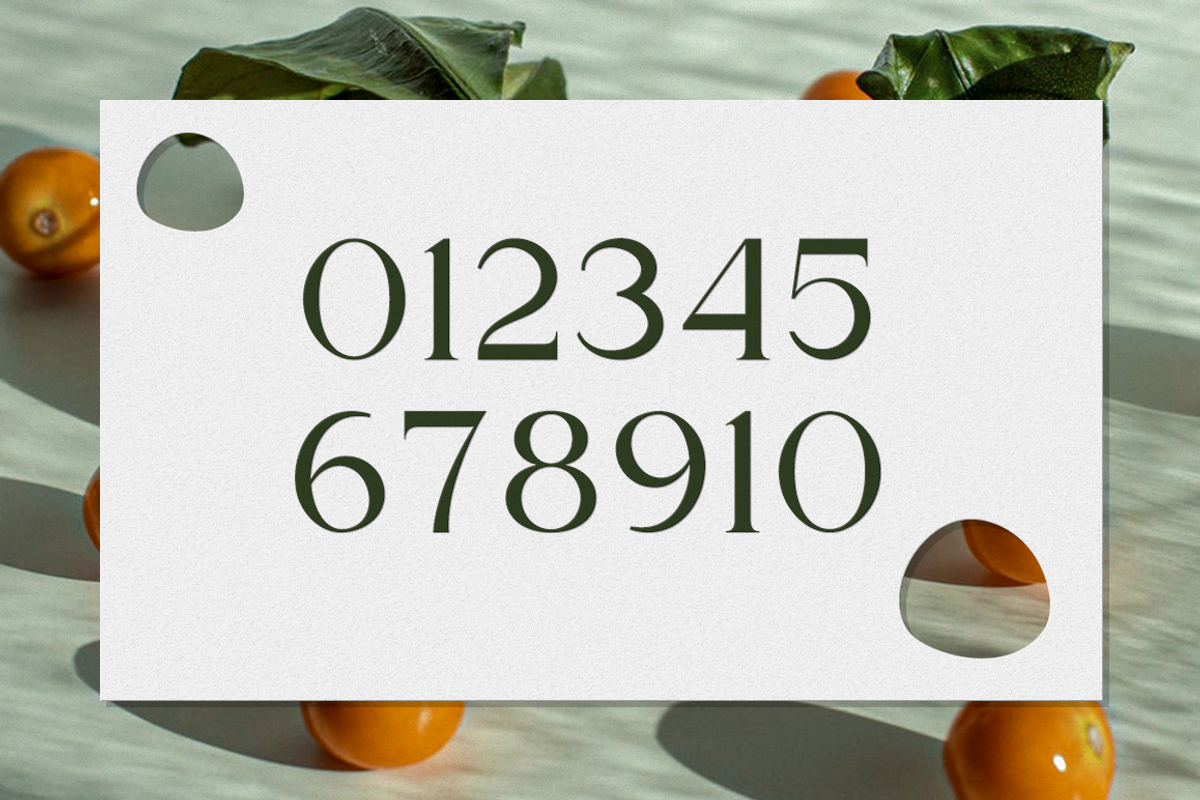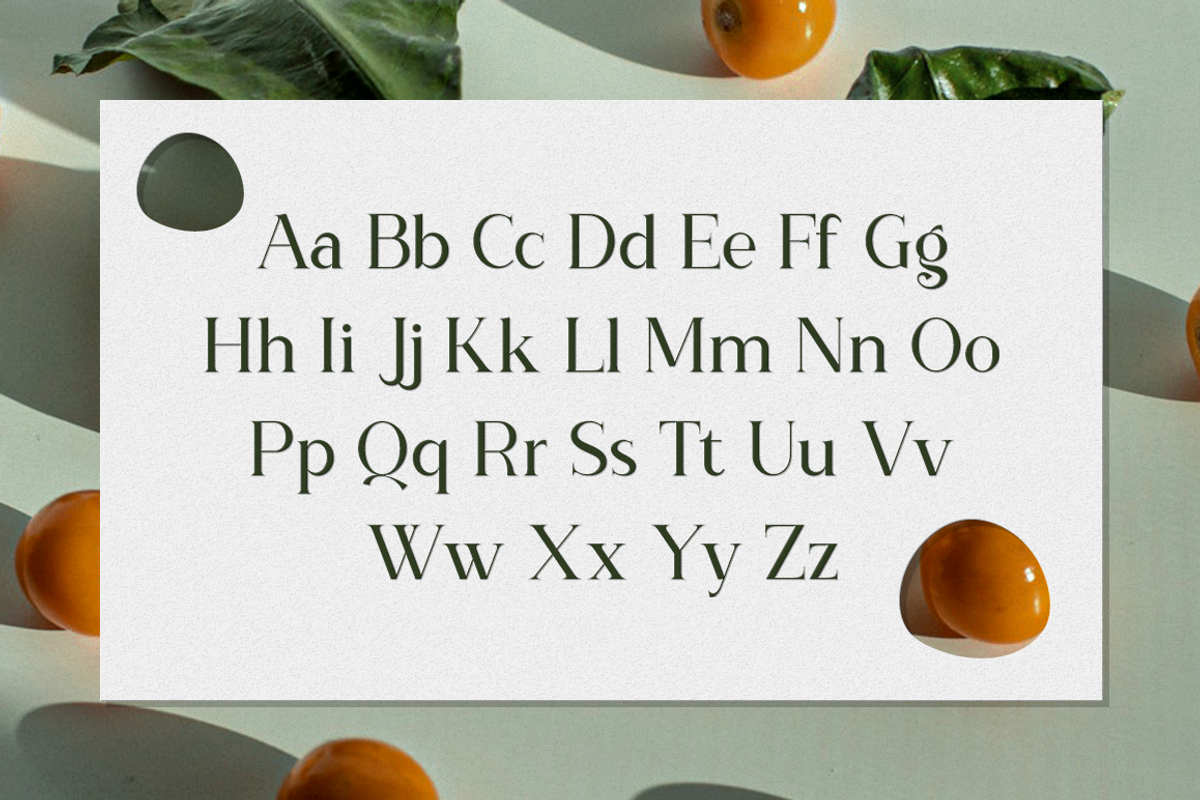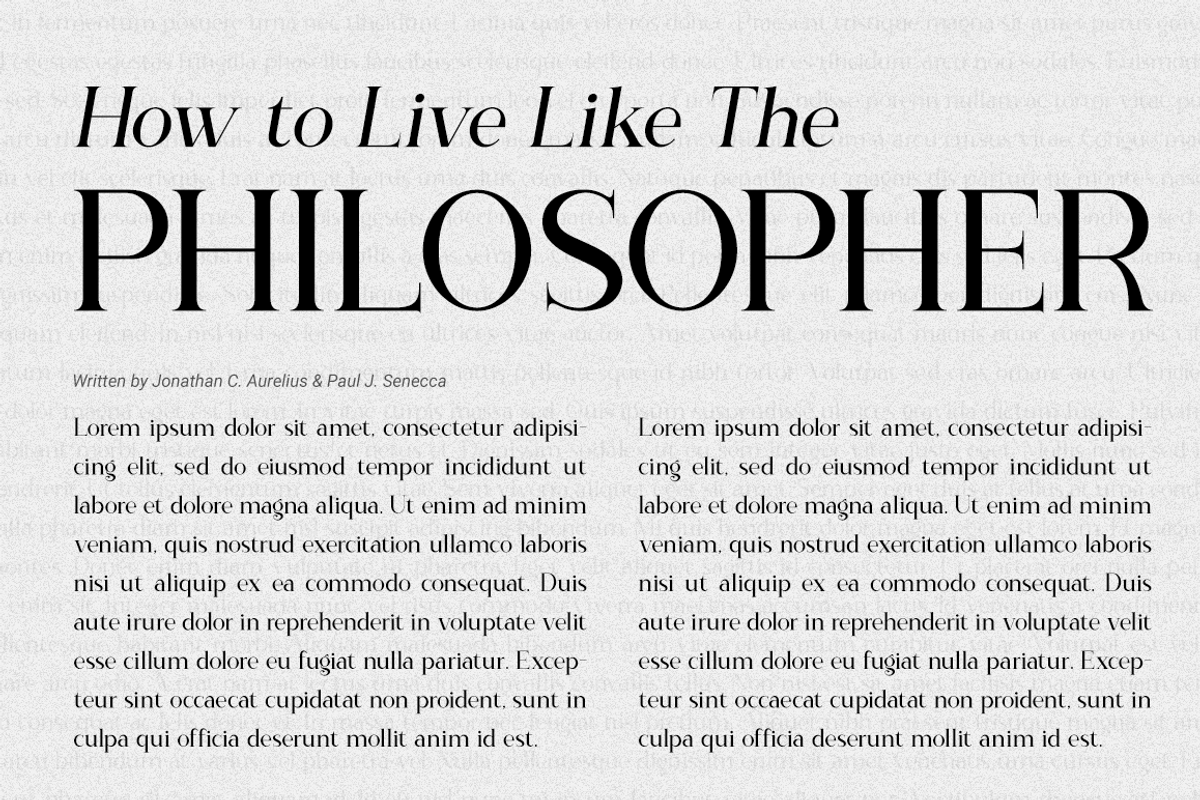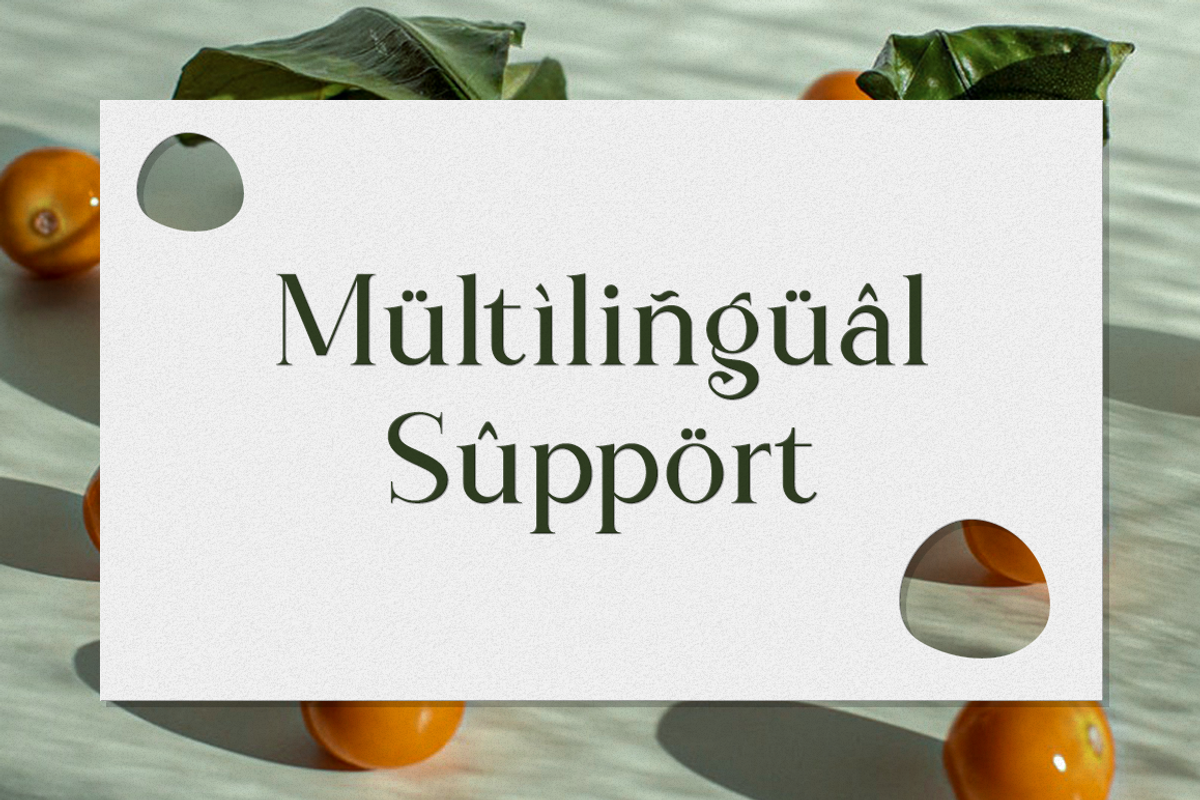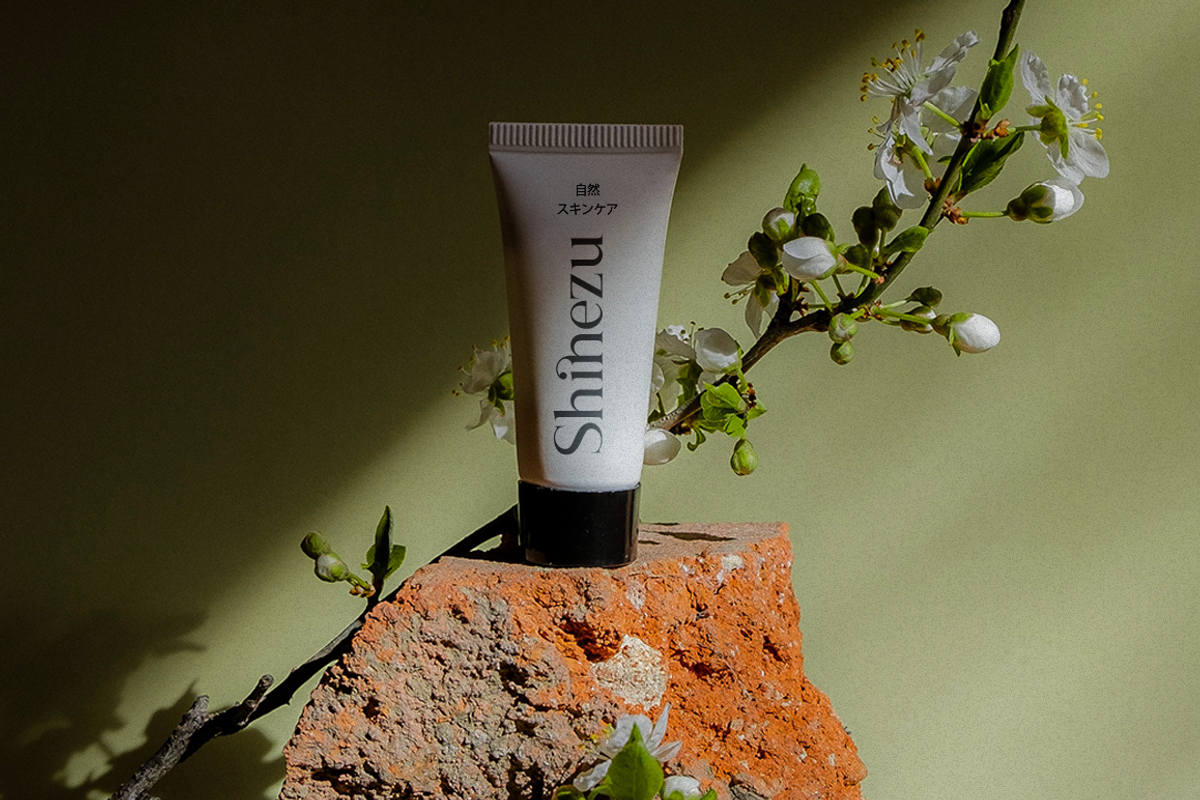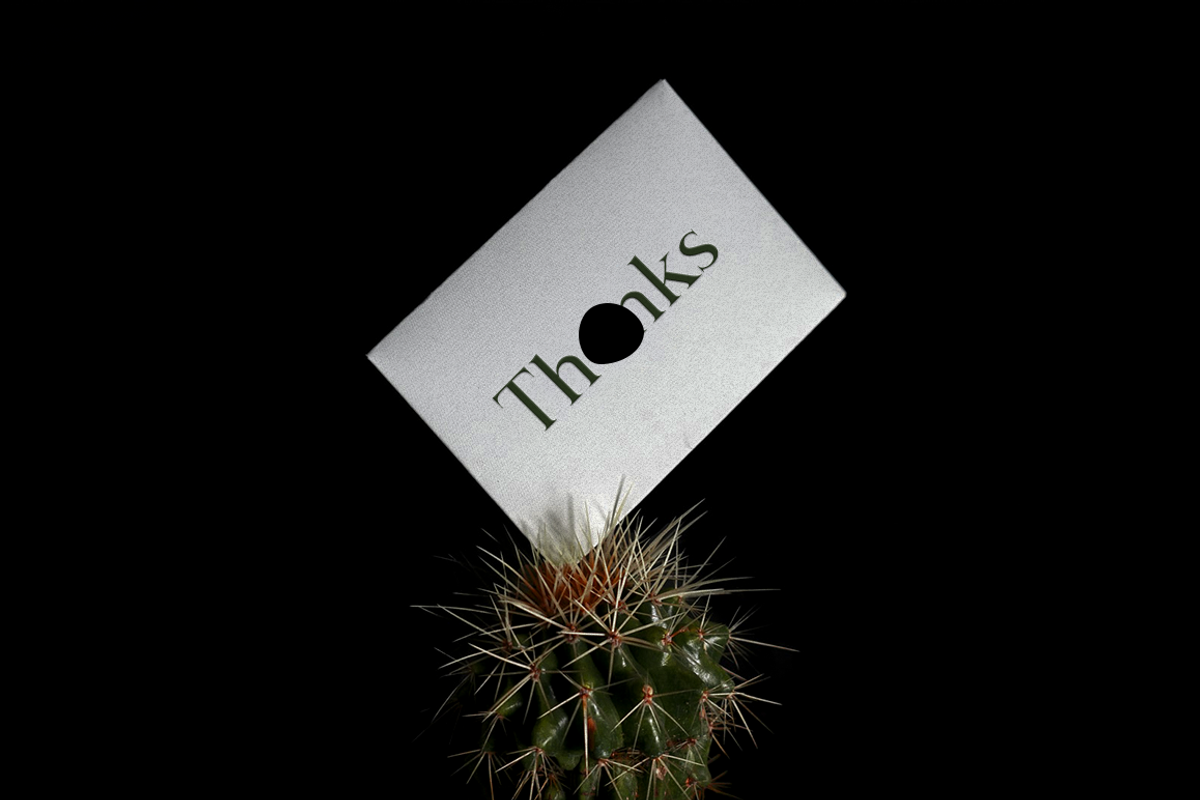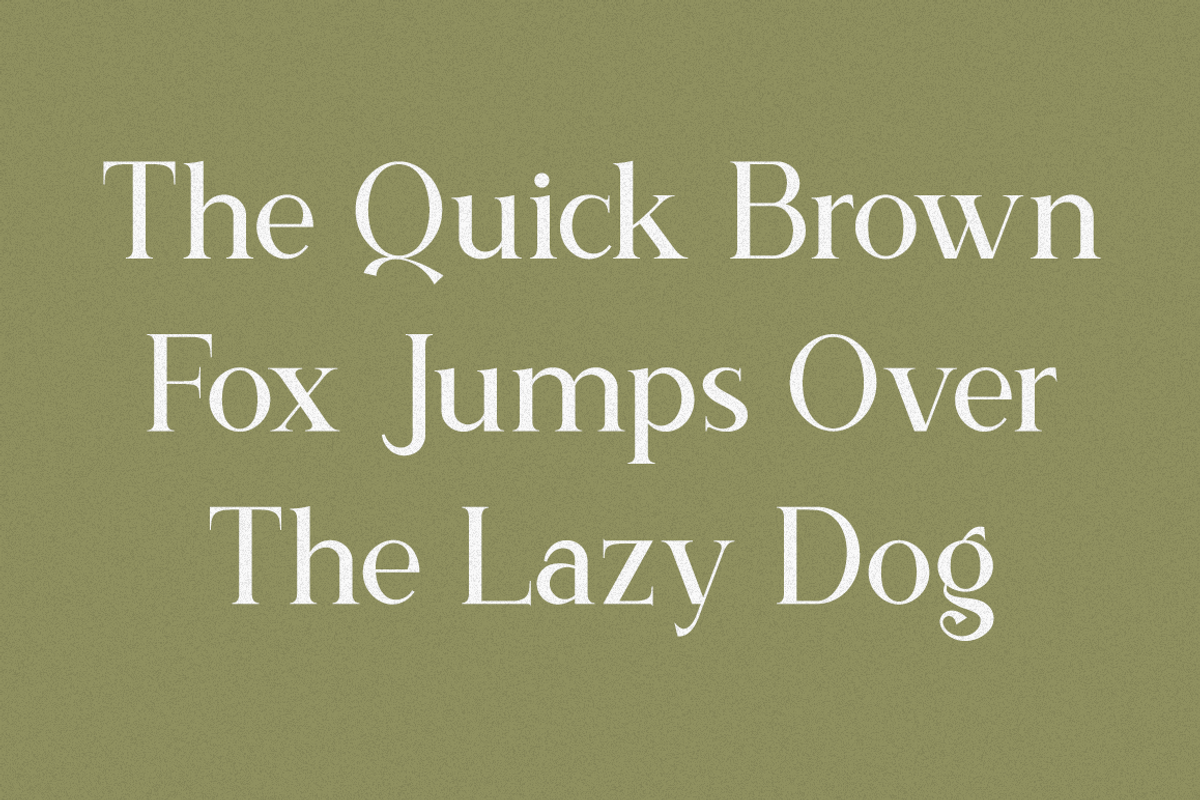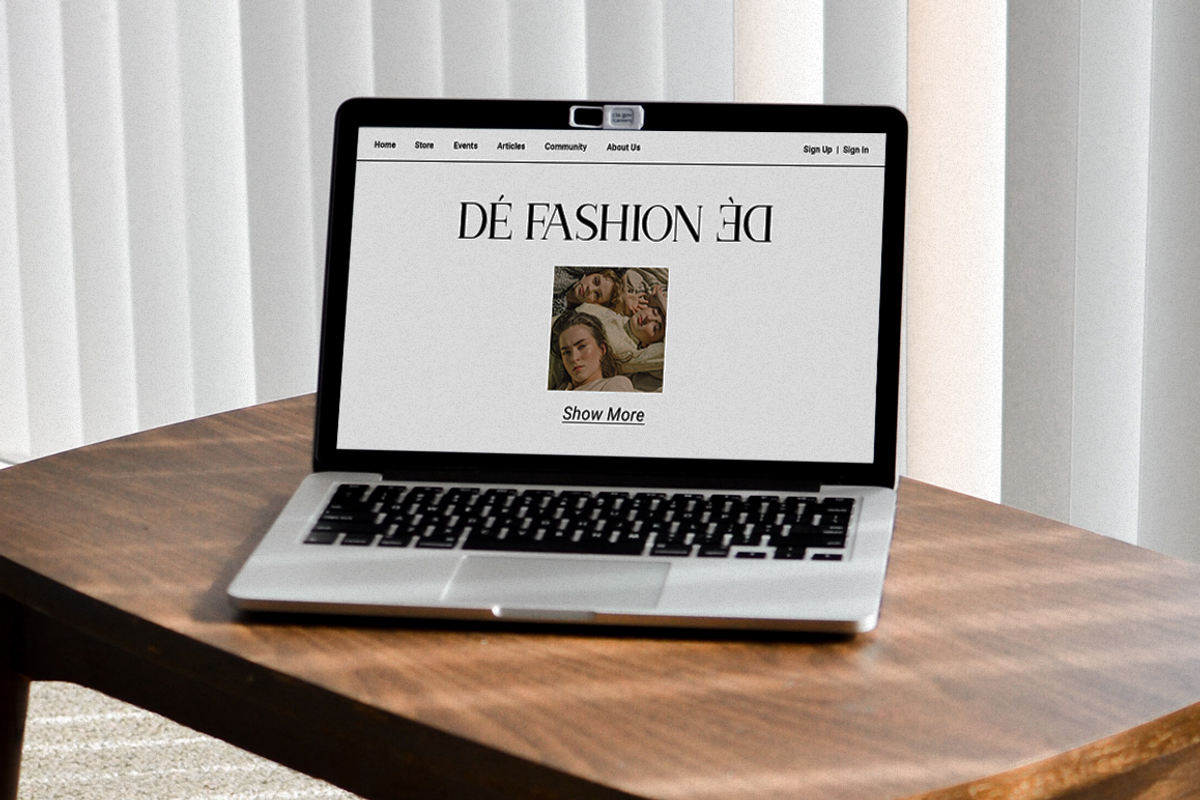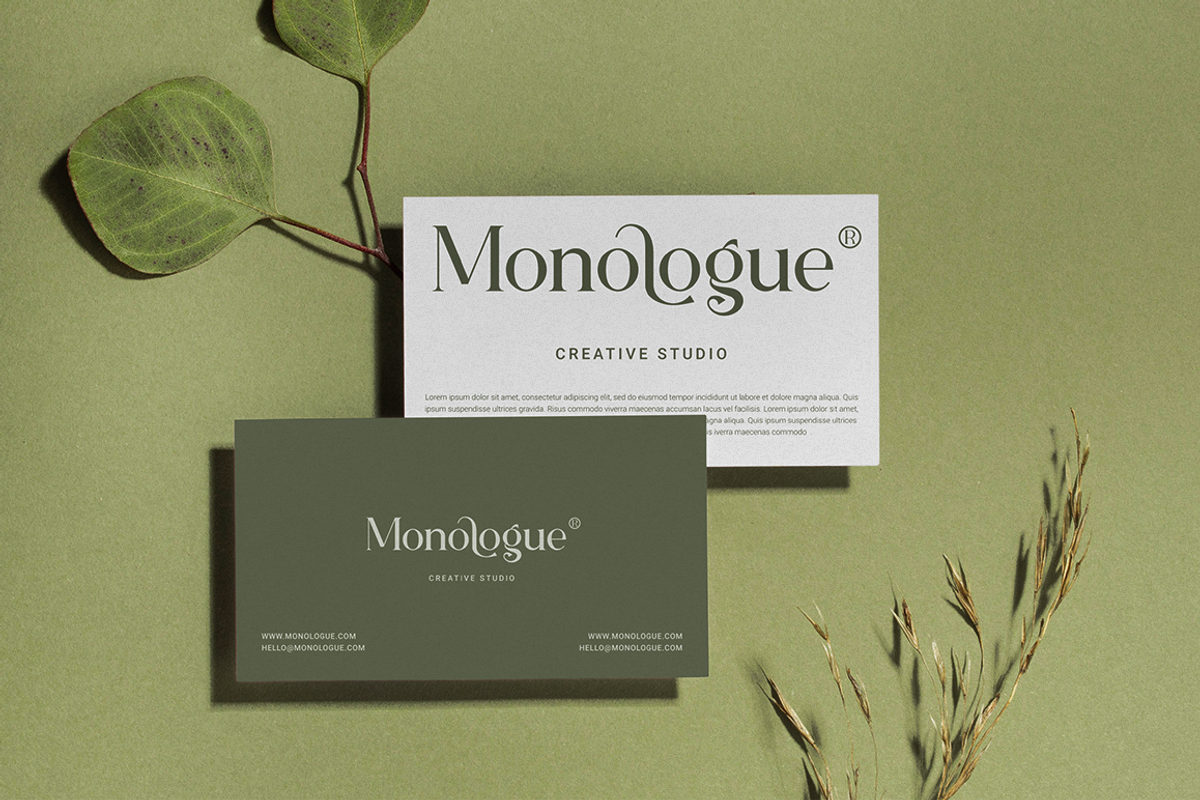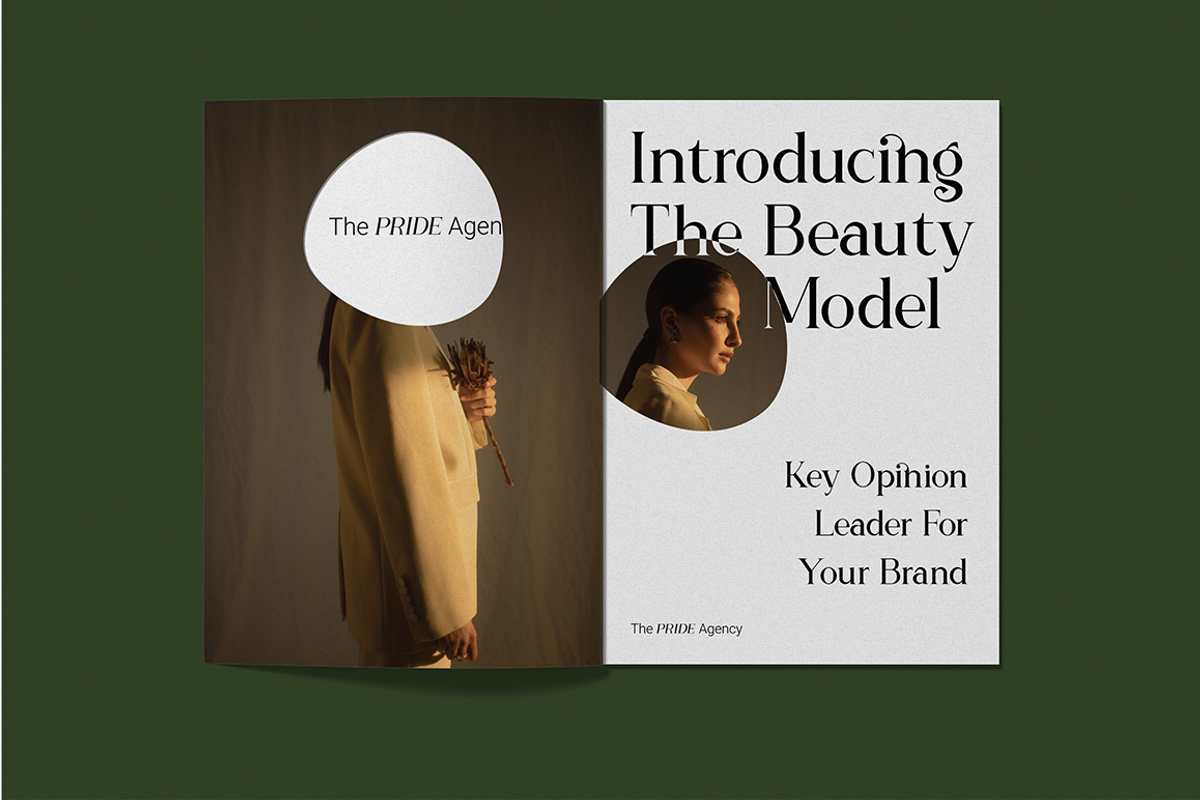
The Calling Monday - Modern Stylish
The Calling Monday is an elegant, thin lettered and distinct serif font. Suitable to a wide variety of designs due to its neat and clean style, this font has the potential to become your favorite go-to font, no matter the occasion!